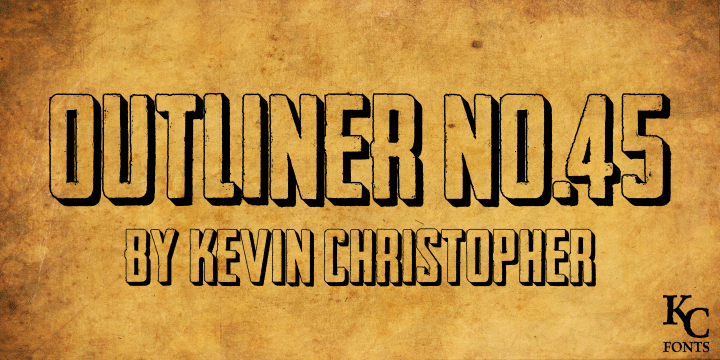
Preview and download Outliner No.45 Font. Created by KC Fonts in Fancy Eroded styles with Demo license.
Outliner No. 45, the younger brother of Headliner No. 45. Pair them up for an awesome time! This demo is free for PERSONAL USE ONLY. Licenses and Full font family with alternates, full kerning and embeddability is available! Please contact kcfonts@gmail.com for more info, donations are also greatly appreciated! Blog: http://www.kcfonts.com Facebook: http://www.facebook.com/KCFonts Twitter: http://www.twitter.com/KCFonts More Fonts: http://www.dafont.com/kevin-christopher.d3302?fpp=50&psize=l MyFonts: http://www.myfonts.com/foundry/KC_Fonts/?refby=KCFonts |